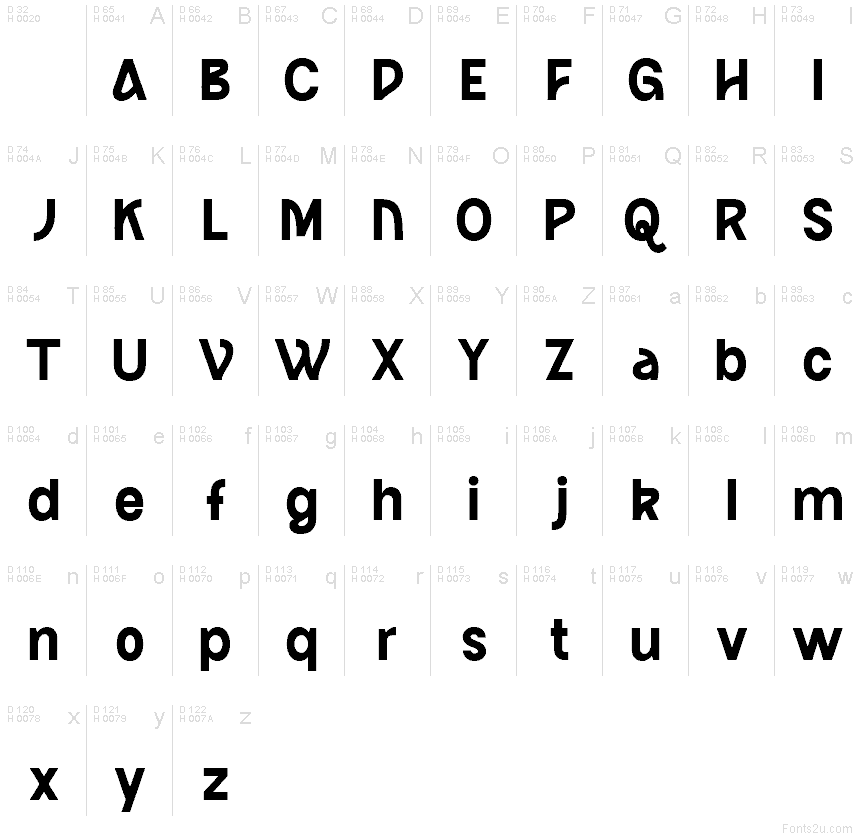
DhPafigoDEMO-Bold
Dh Pafigo Bold font by Dharmas Studio combines classic styles with a modern twist through geometric shapes. This free sans serif font offers clean lines and a contemporary feel that make it versatile for all occasions. It is an excellent choice for professional projects, as well as lighthearted personal usages.
Dh Pafigo Bold shines in branding, logos, slogans, titles, headers, editorial design projects such as magazines and newspapers. Try it in social media posts and web pages or apps for elegant works. Other ideas include prints like package designs, t-shirts and graphic merchandise which could be either digital or print designs.
Dharmas Studio
Jamaludin Achmad Sahestya Dharma